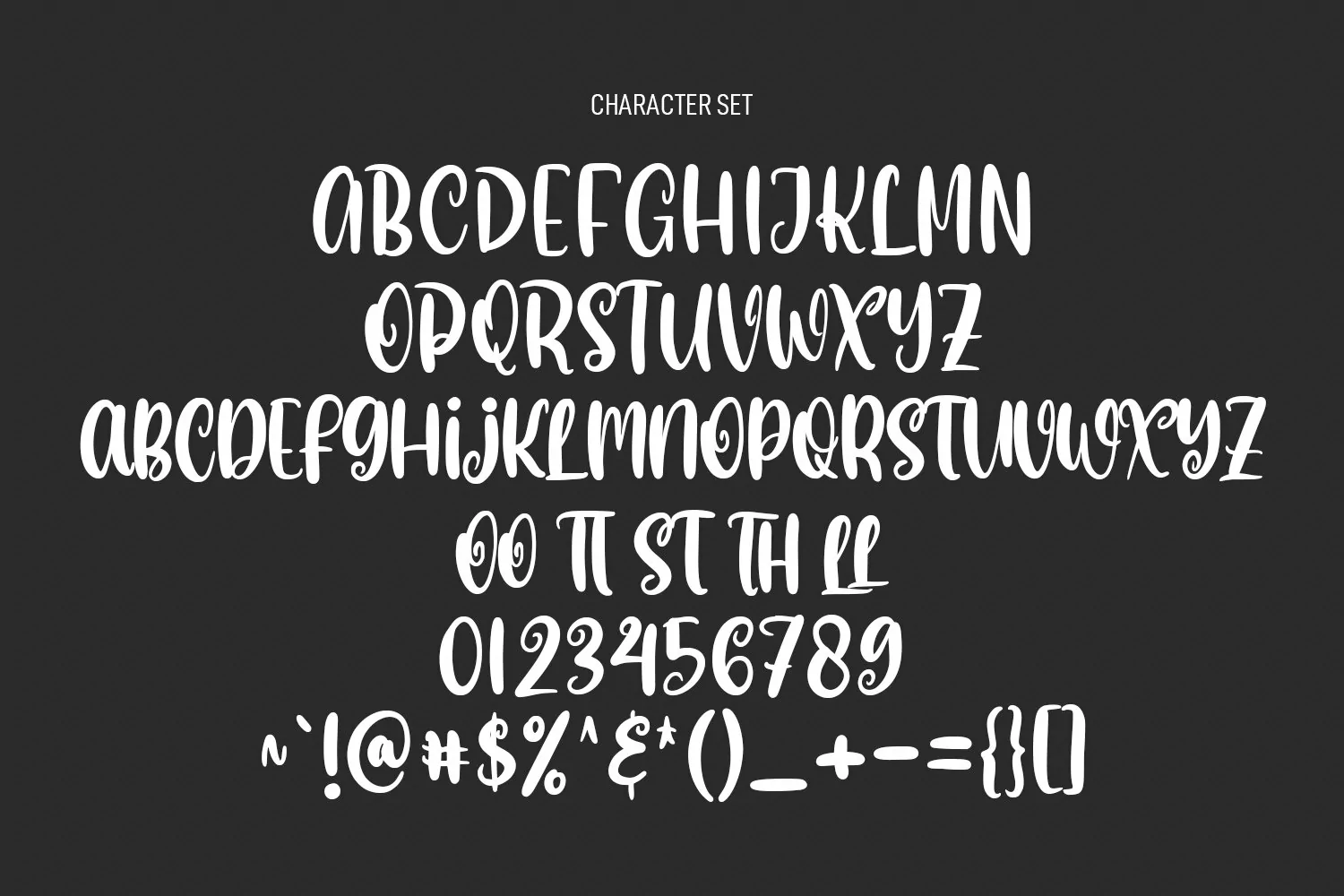
Loveables Magazino is a fancy handwritten font. With bold contrast stroke, fun character with a bit of ligatures. To give you an extra creative work. Loveables Magazino font support multilingual more than 100+ language. This font is good for logo design, Social media, Movie Titles, Books Titles, a short text even a long text letter and good for your secondary text font with sans or serif. Make a stunning work with Loveables Magazino font.
Loveables Magazino